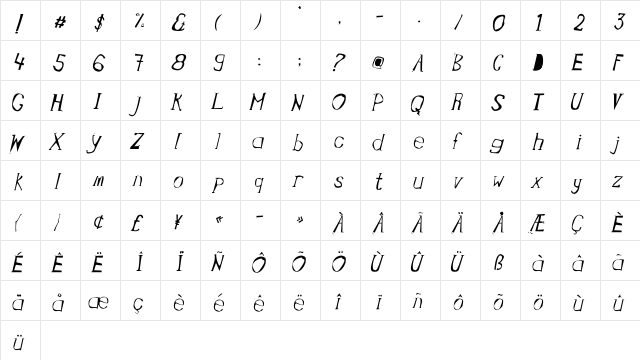
CLAFNIScratchNsniff-Italic Italic Font Preview
CLAFNIScratchNsniff-Italic Italic
CLAFNIScratchNsniff-Italic Italic Font Details
Design Context for CLAFNIScratchNsniff-Italic Typeface
CLAFNIScratchNsniff-Italic offers clean, dependable letterforms without strong stylistic allegiance, making it a practical choice for designers who need flexibility. The dynamic lean of this cut emphasises speed and emphasis in any layout.
Pro Tip: Try CLAFNIScratchNsniff-Italic for annotation and caption copy alongside an upright companion — the contrast in angle creates a dynamic but ordered typographic system.